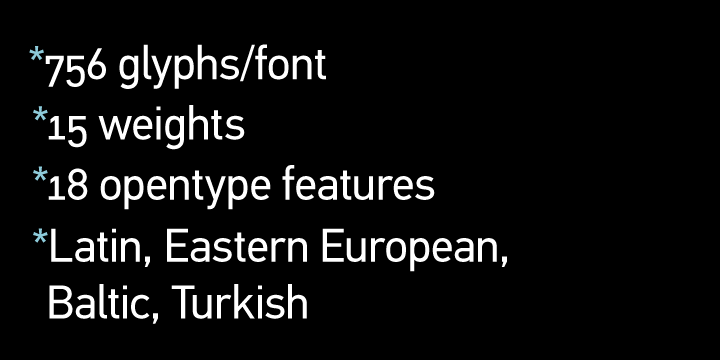
PF DIN Text Std is a DIN German based typeface created by Panos Vassiliou and published by Parachute. As a scaled-down version of the popular DIN Text Pro series, this is still a super family that includes 15 modern fonts with 756 glyphs per font. You cannot miss it!
Foundry: Parachute
Released: 2002